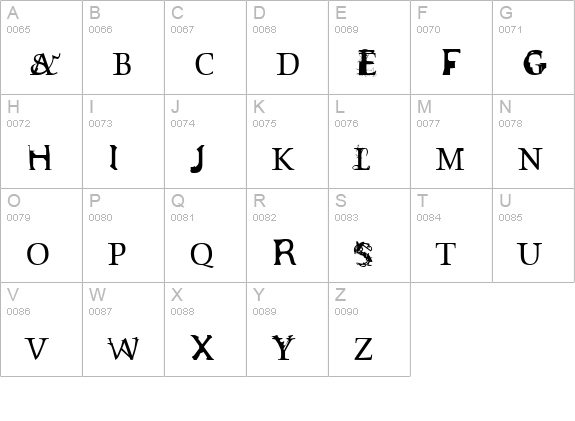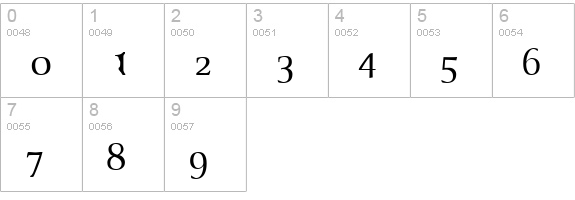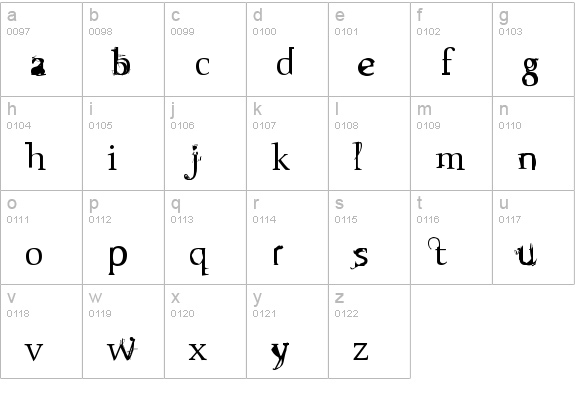
Sloth Font Details
Introducing Sloth, the epitome of elegance and simplicity in font design. This exquisite typeface effortlessly combines sleek curves with a touch of whimsy, resulting in a truly unique and captivating appearance. With its delicate strokes and carefully crafted letterforms, Sloth exudes a sense of grace and sophistication that is bound to leave a lasting impression. But what sets Sloth apart from the rest? Well, besides its undeniable beauty, this font offers something truly special - it's completely free! That's right, Sloth can be freely downloaded at FontsMarket.com, allowing you to add a touch of class to your designs without breaking the bank. Whether you're working on a branding project, designing a logo, or simply looking to elevate your typography game, Sloth is the perfect choice. Its versatility knows no bounds, effortlessly adapting to any context and conveying your message with clarity and finesse. With its wide range of weights and styles, Sloth offers endless possibilities for creative expression. From its elegant thin variations to its bold and impactful options, this font is a true chameleon, effortlessly adapting to any project or design concept you throw its way. So why wait? Embrace the beauty of Sloth and elevate your designs to new heights. Download this stunning font for free at FontsMarket.com and unlock a world of endless possibilities. With Sloth by your side, there's no limit to what you can achieve.